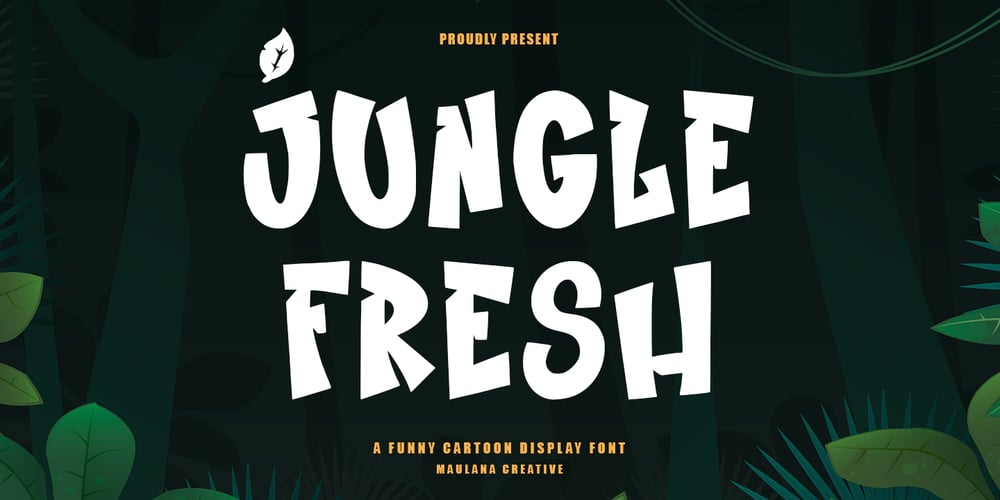
MC Jungle Fresh Font Family was designed by Gilang Maulana and published by Maulana Creative. MC Jungle Fresh contains 1 styles and family package options. Jungle Fresh funny cartoon display font. With bold tall and kids stroke, fun character with alternates. To give you an extra creative work. Jungle Fresh font support multilingual language. This font is good for logo design, Social media, Movie Titles, Books Titles, a short text even a long text letter and good for your secondary text font with sans or serif. Make a stunning work with Jungle Fresh font.Cheers,Maulana Creative